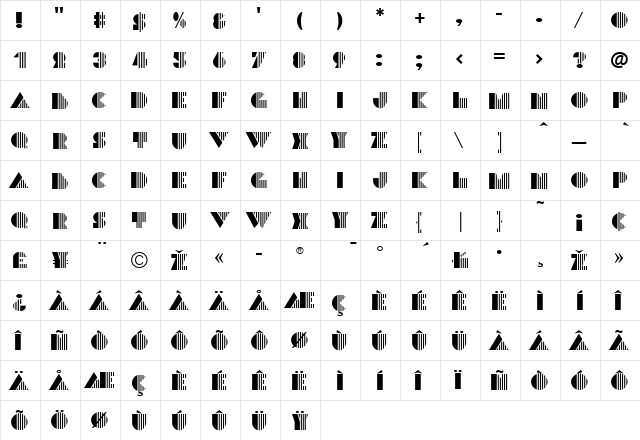
Groove Regular
Design Context for Groove Typeface
Groove is a composed and adaptable typeface that performs quietly and consistently across a wide range of design contexts.